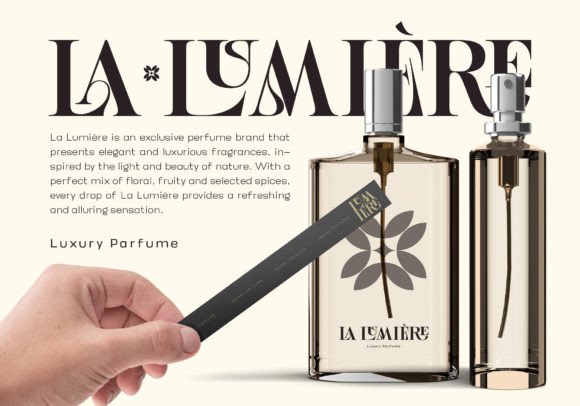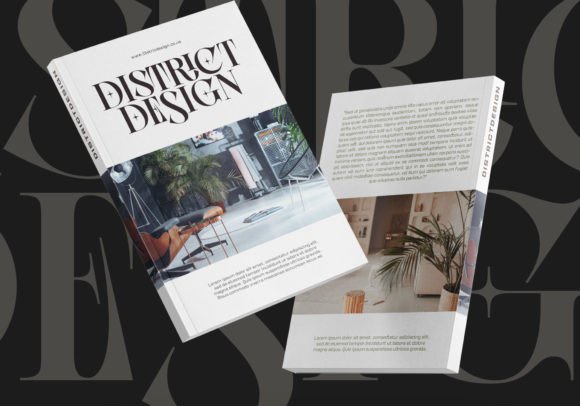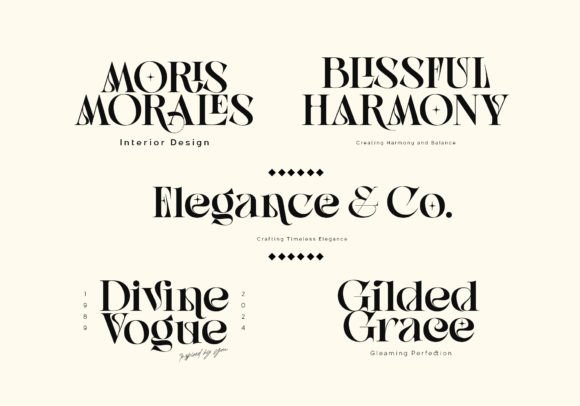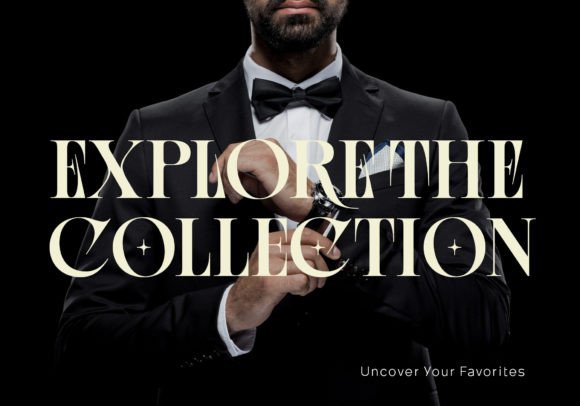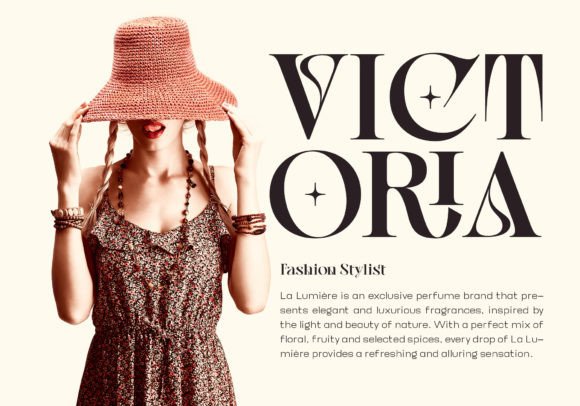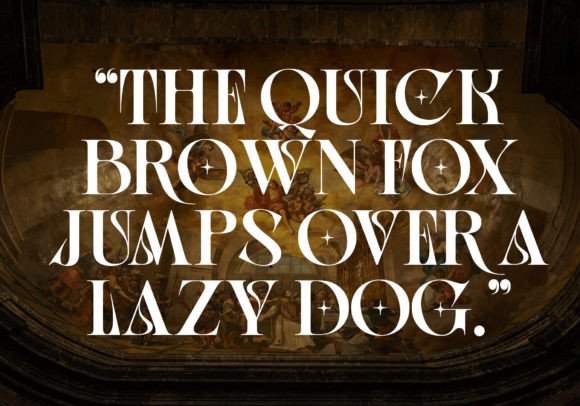
Introduction to Movix Font
Movix is a serif font that combines classic elegance with a modern touch, creating a unique and captivating look.
Inspired by old-fashioned scripts, Movix offers an elegant feel while remaining relevant for today’s era Equipped with OpenType features such as Ligature and Alternates, Movix provides flexibility in letterform variations, allowing users to customize the style as needed.
Key Features of Movix Font